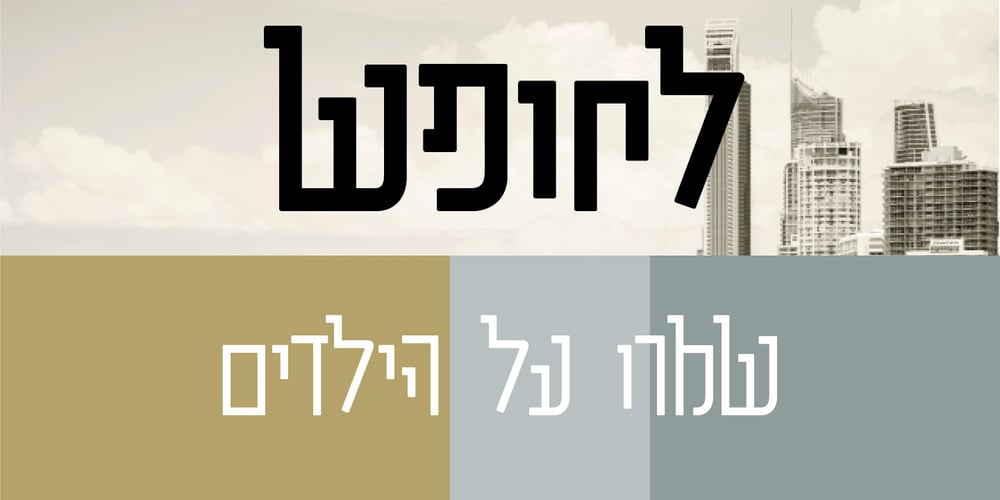
Metapsim MF
Metapsim MF font
Metapsim MF Font Family was designed by Daniel Levy and published by Masterfont. Metapsim MF contains 2 styles and family package options. Need a tattoo? there you go. Crazy and naughty – who could ask for anything more?